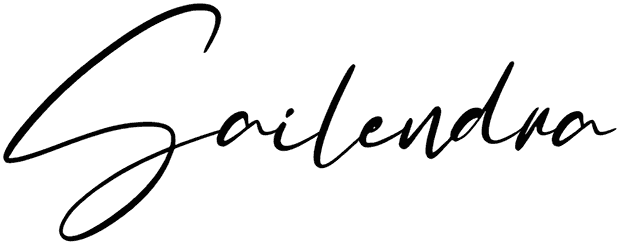
Sailendra Font
With the help of Sailendra, a handwritten font, you can introduce a creative flair to your digital designs and get a wide range of fun results. Any presentation that needs to be noticed will benefit greatly from this retro and nearly unrecognizable certificate font.
This natural font can be used for many different things, like signs, greeting cards, flyers, and more. Although it may be a little challenging to read, it is worth giving it a shot.